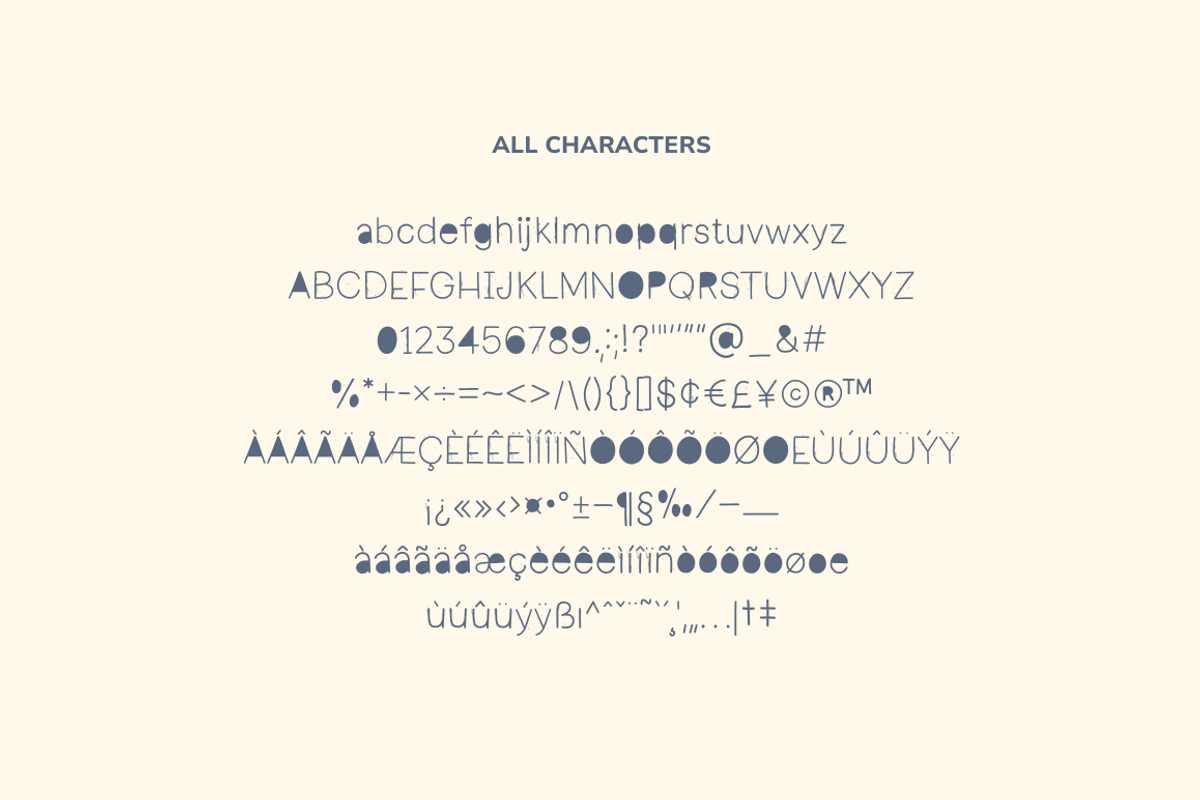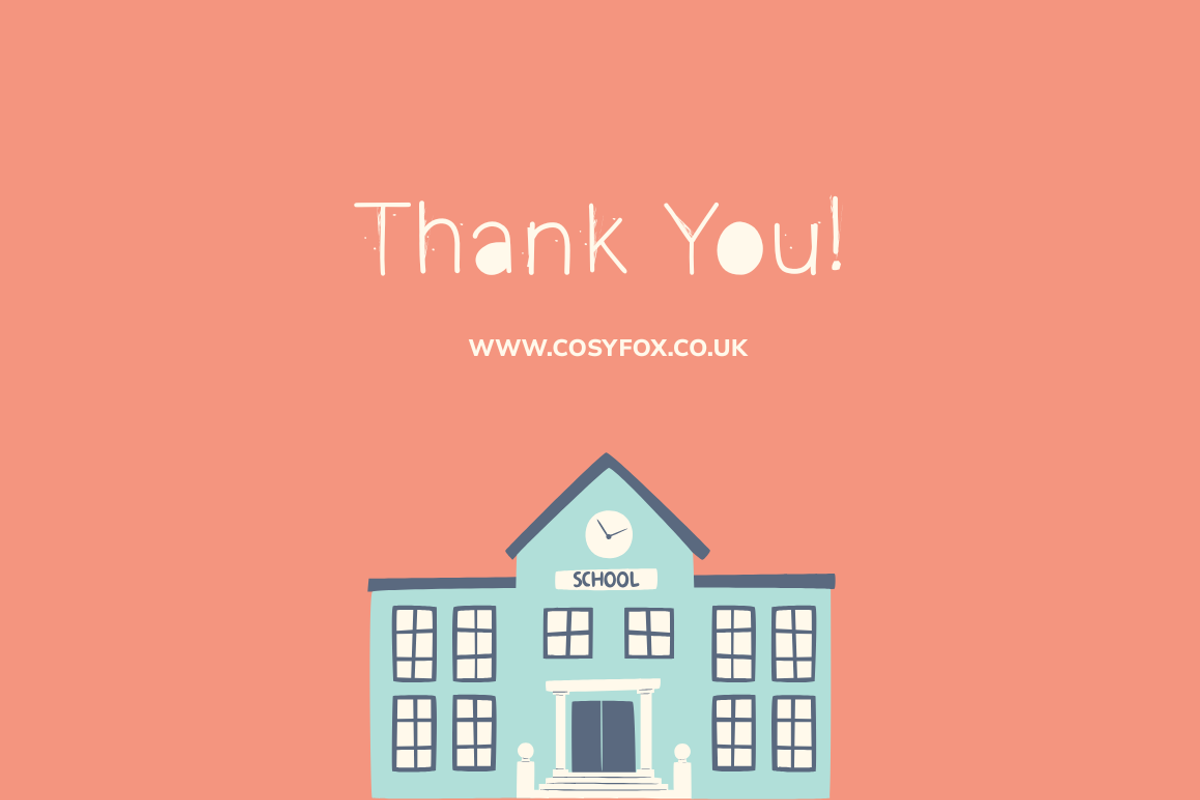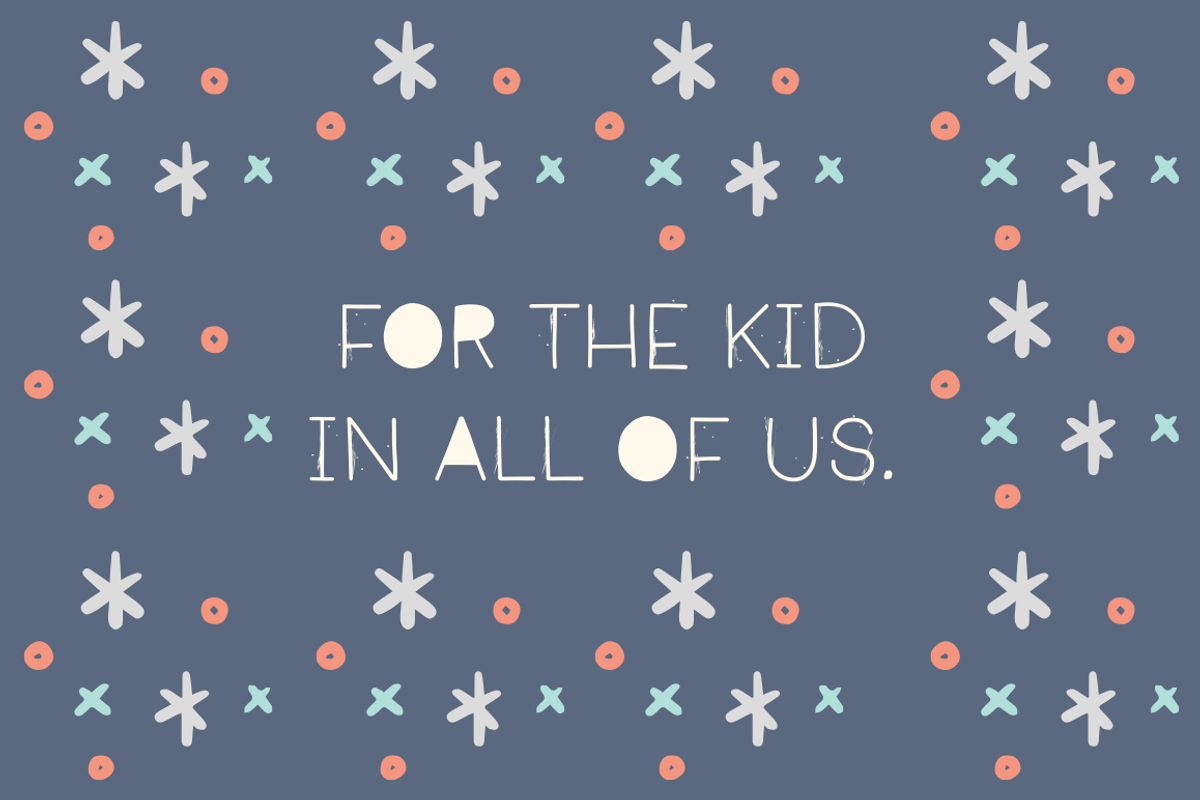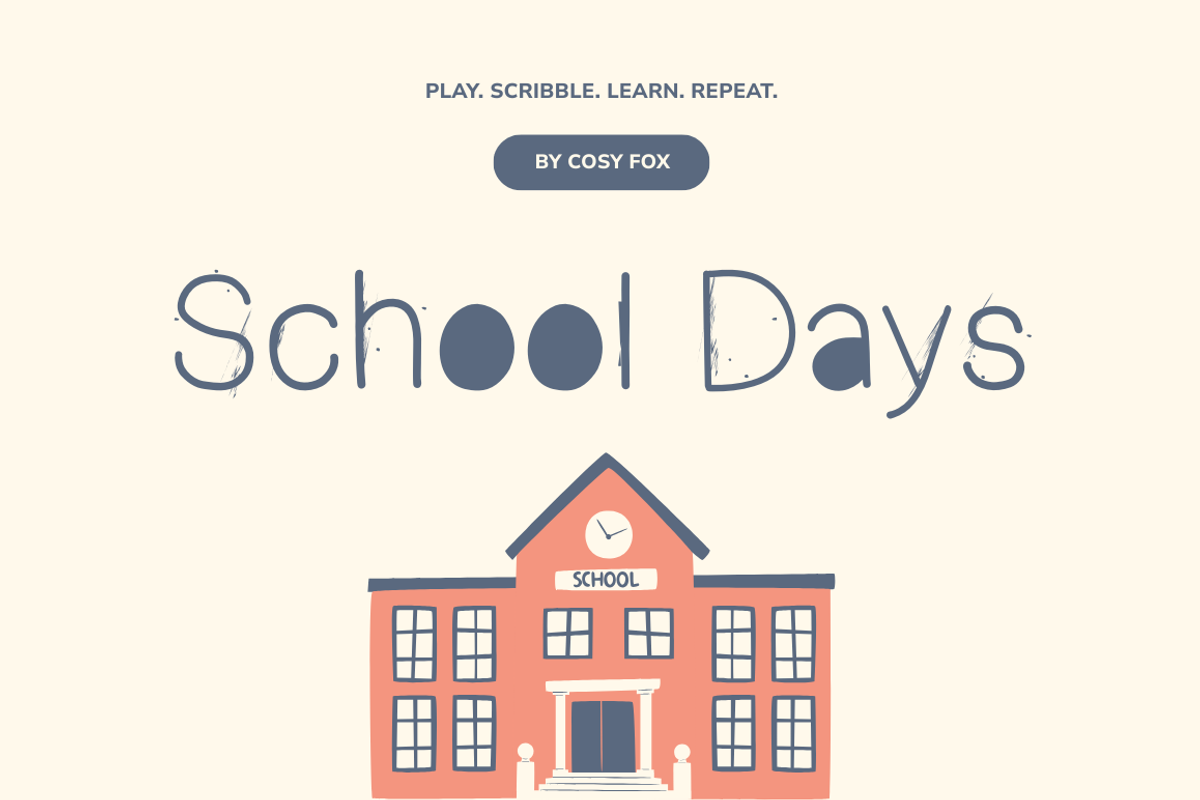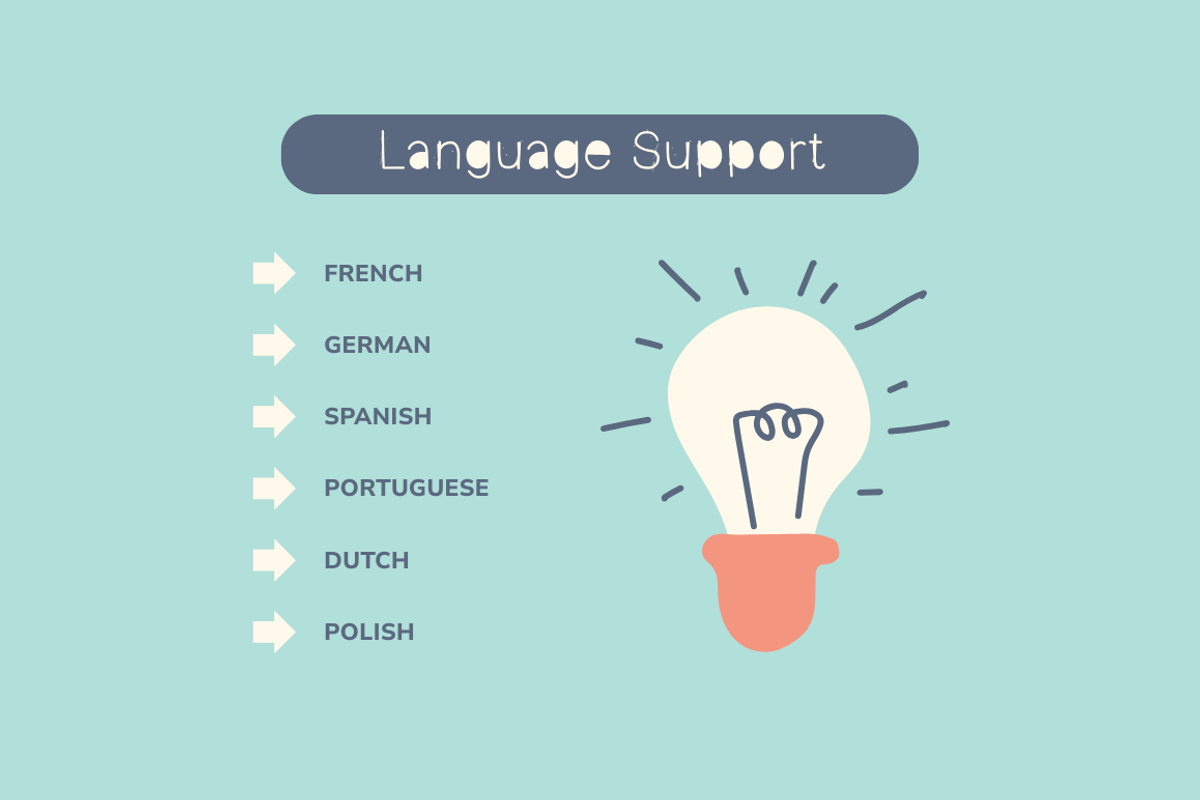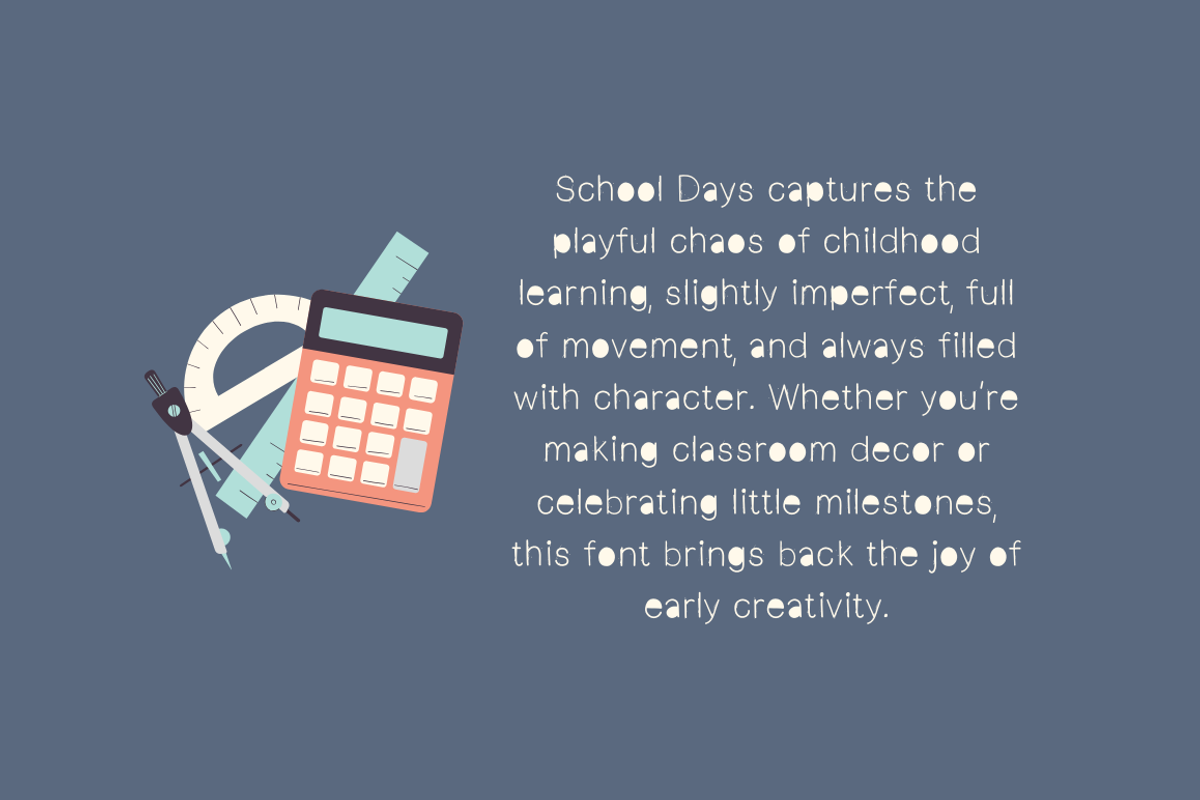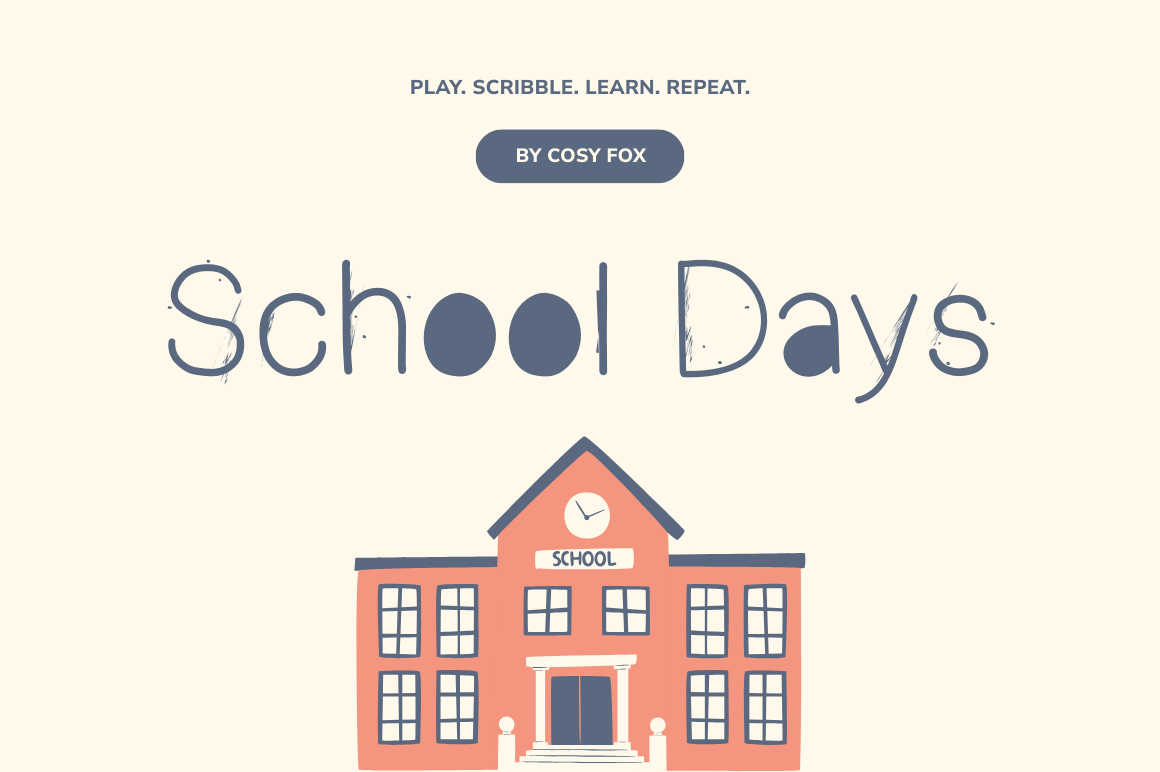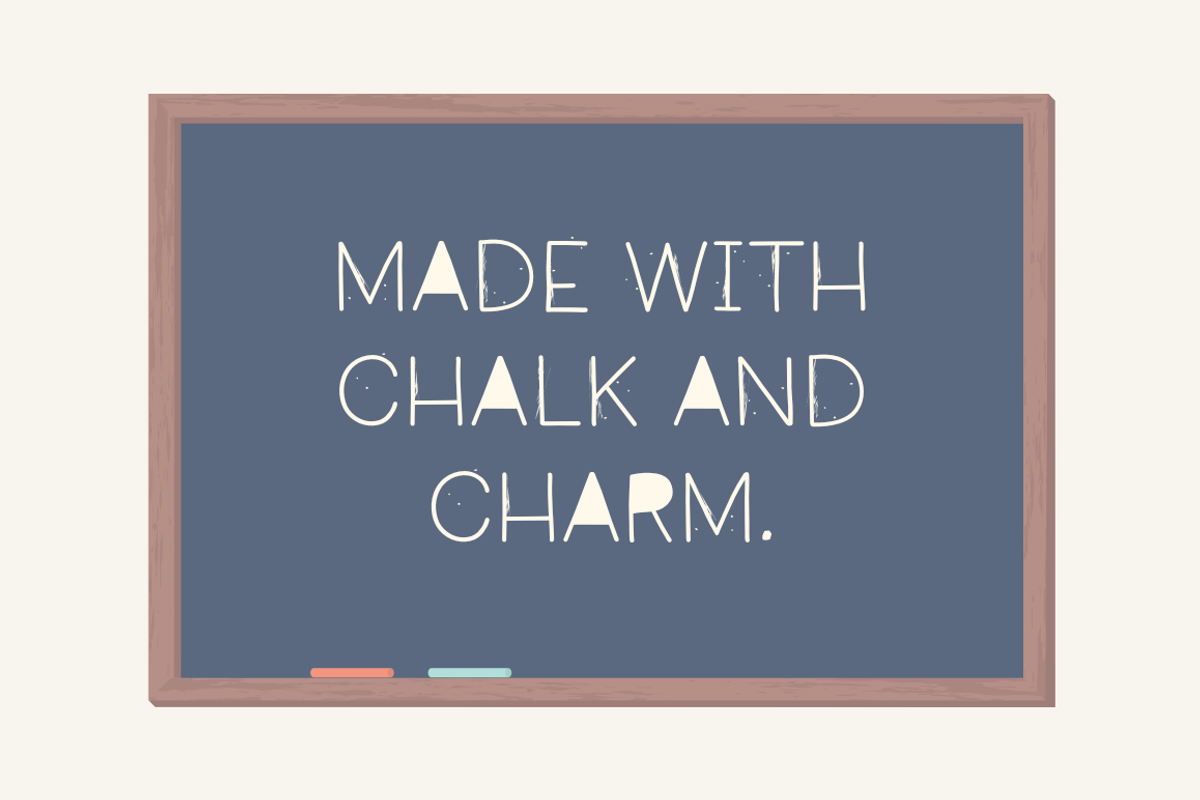
School Days Font
School Days is a playful, hand-drawn font inspired by early learning and chalk-dusted classroom boards. With soft curves, a sketched texture, and a sprinkle of messiness, it’s made for worksheets, classroom signs, kids’ products, and nostalgic designs that don’t take themselves too seriously.